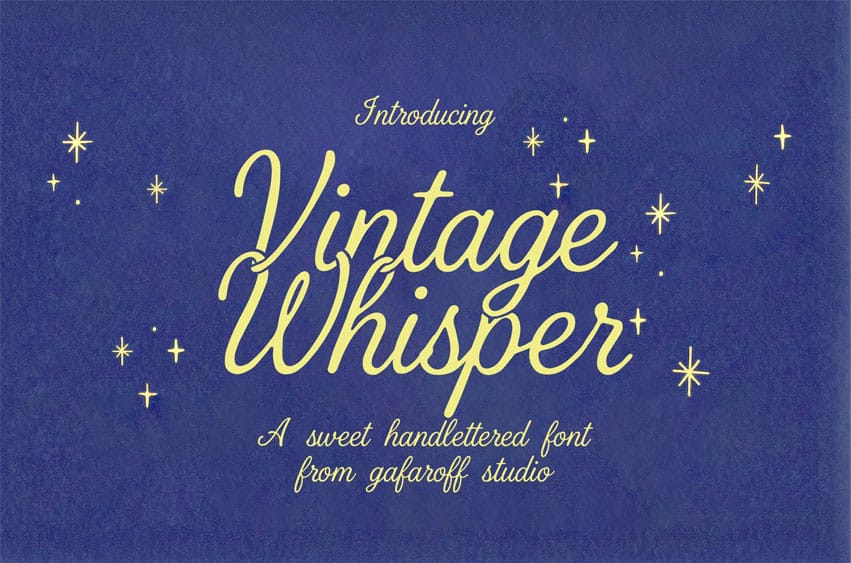
Vintage Whisper Font is a sweet, vintage-inspired handwritten script with a soft retro mood and a touch of sparkle. It’s smooth, slightly whimsical, and made to feel like a cozy note written under warm lamp light — perfect for romantic, nostalgic, and playful designs.